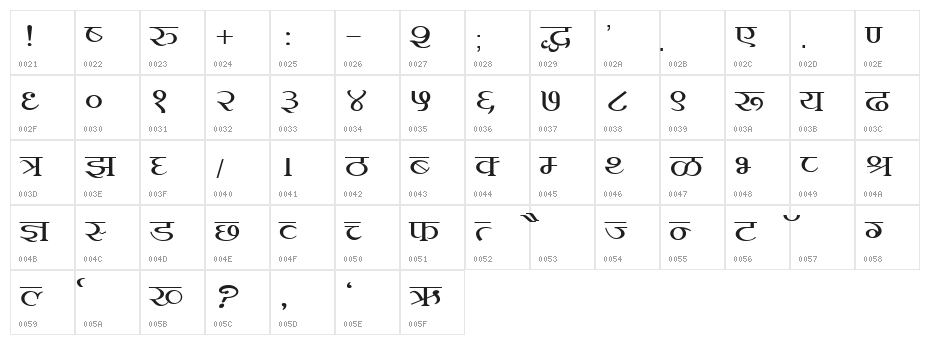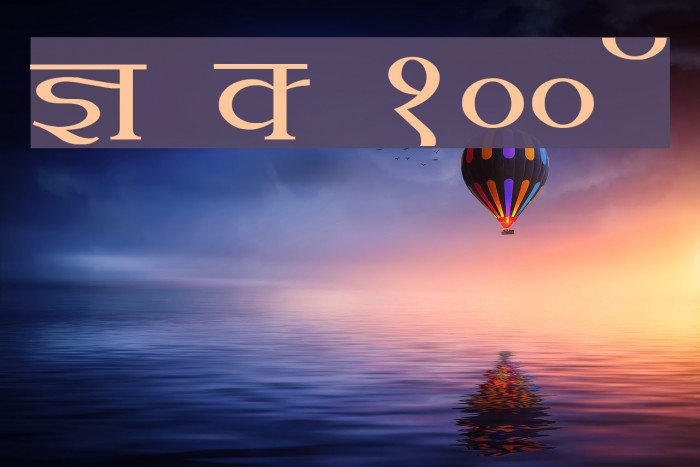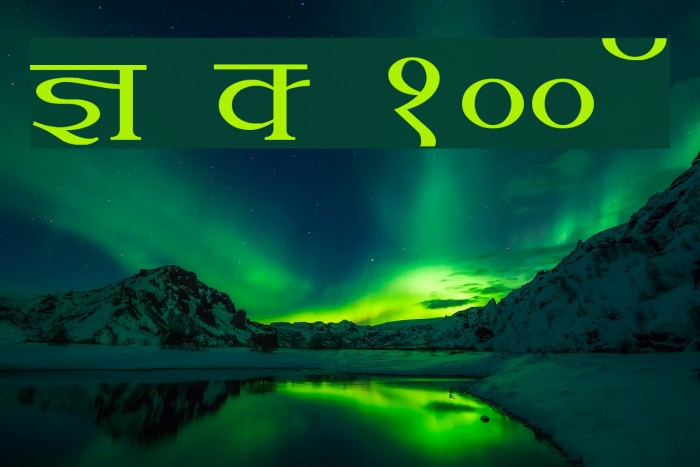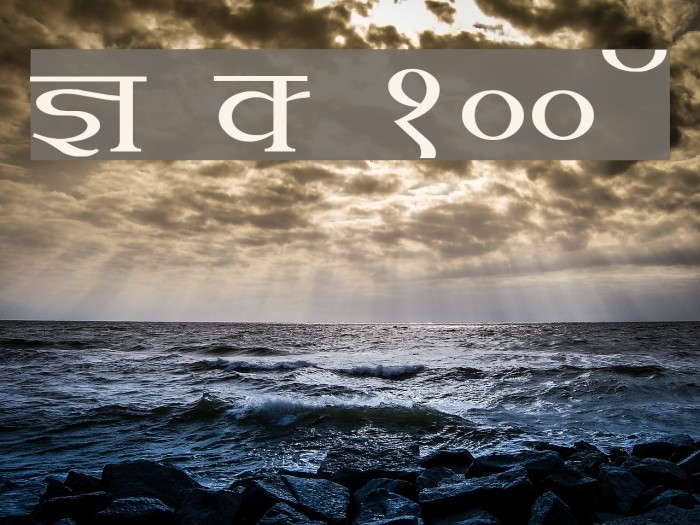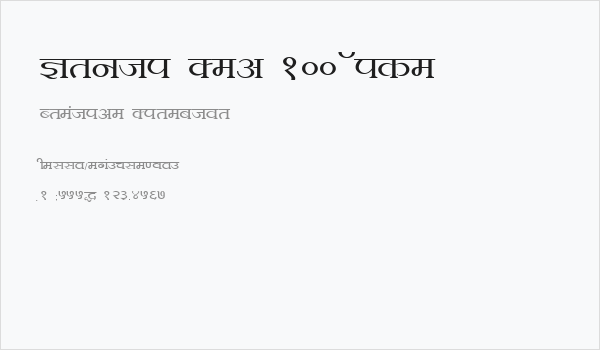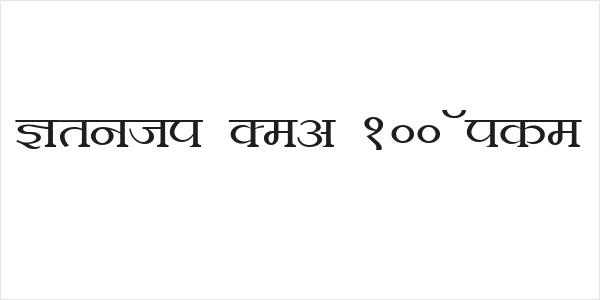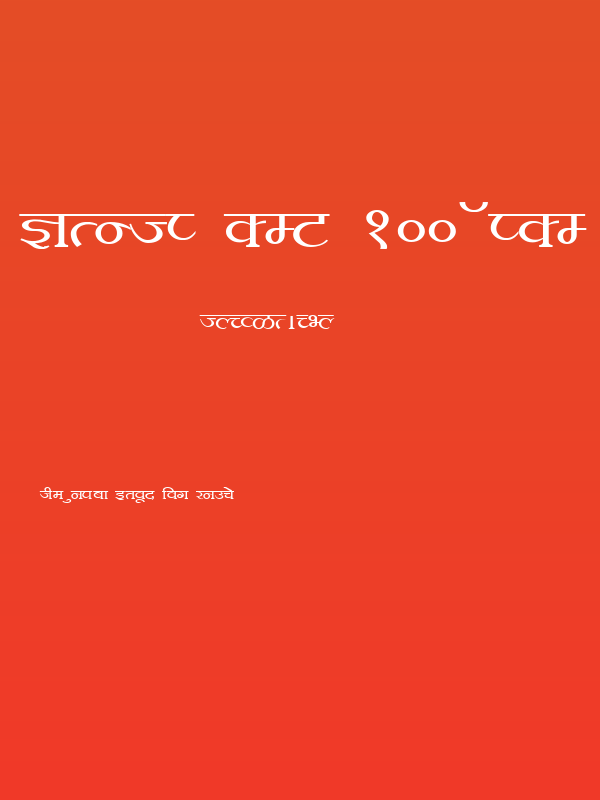
Kruti Dev 100 Wide Font
Kruti Dev 100 Wide Description
This font is a Devanagari script typeface characterized by its bold and wide letterforms. The characters are designed with a high level of contrast between thick and thin strokes, giving it a distinctive and striking appearance. The font maintains a traditional feel while incorporating modern elements, making it suitable for various applications. The spacing between characters is relatively tight, which enhances its boldness and impact. The overall style is both classic and decorative, making it versatile for different design needs.
| Overall Style | Classic, Decorative |
| Use Case | Headlines, Posters, Signage |
| Proposed Projects | Ideal for use in headlines, posters, and signage where a strong and traditional yet modern look is desired. |